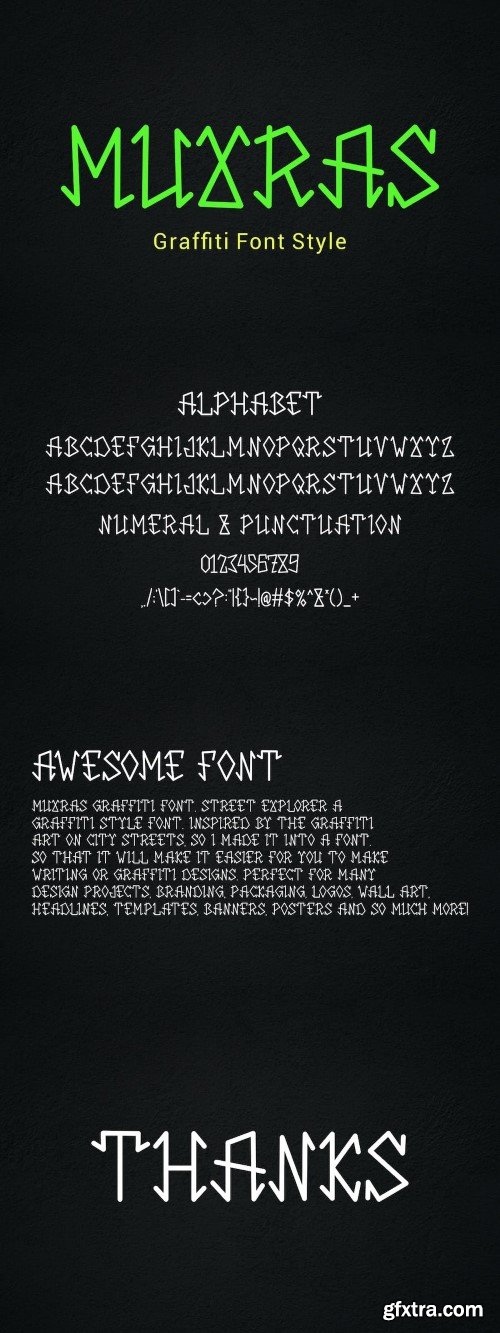
muxras - 火花字体风格
Muxras - Graffiti Font. Street Explorer A Graffiti Style Font. Inspired by the graffiti art on city streets, so I made it into a font. So that it will make it easier for you to make writing or graffiti designs. Perfect for many design projects, branding, packaging, logos, wall art,headlines, templates, banners, posters and so much more!